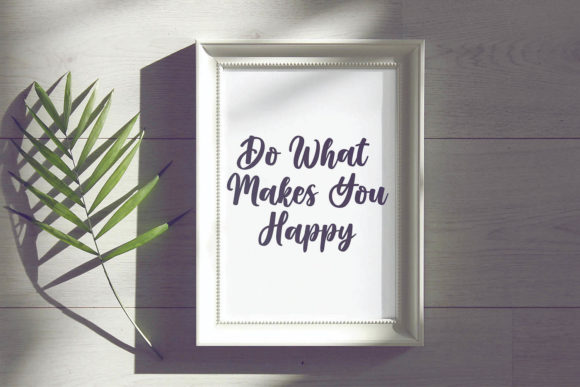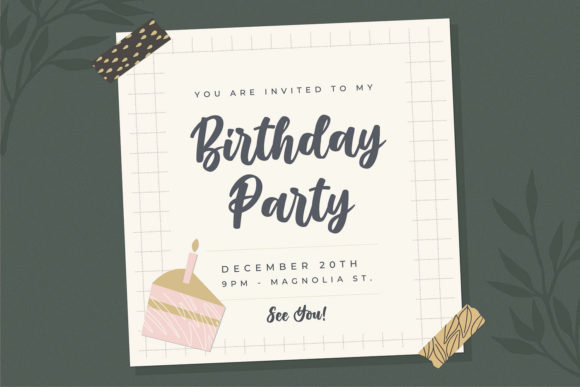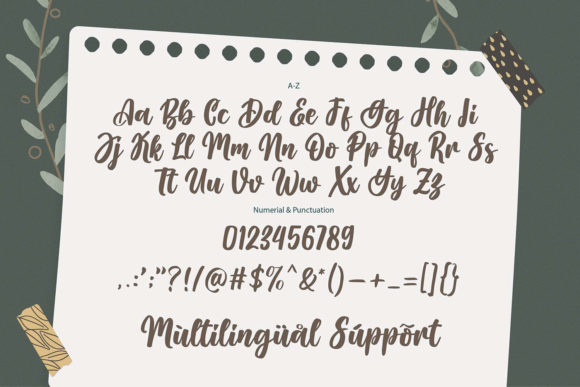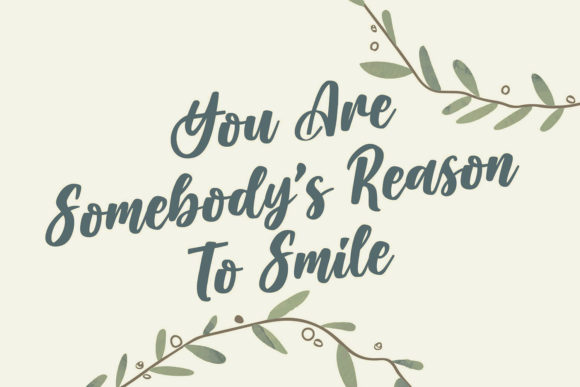
Whisper Garden Font
About Whisper Garden Font
Whisper Garden is a sweet and delicate handwritten font. Dainty and joyful, this font will be ideal for writing wedding invitations, cards or any other design that may need a romantic, personalized touch!